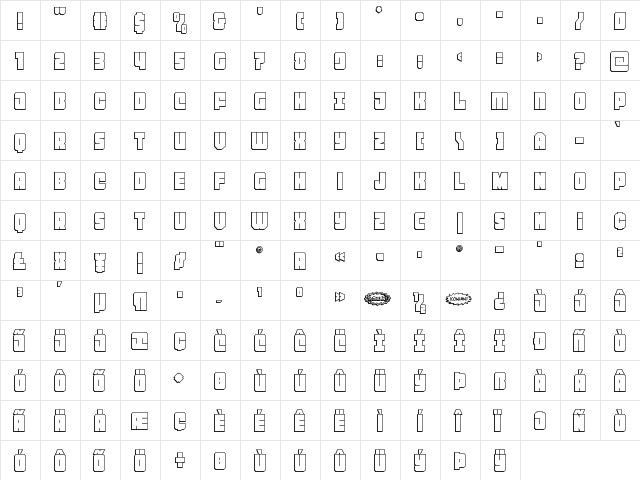
Homebase Outline Regular
Design Context for Homebase Outline Typeface
Homebase Outline brings ornamental detail and strong personality to headlines and identities, where visual impact matters more than quiet functionality.
Font Pairing: Pair with a clean neutral sans-serif for body copy to let Homebase Outline's character lead without overwhelming the composition.
Pro Tip: Use Homebase Outline exclusively at display sizes — it was designed to be seen, not read at length. Let a neutral companion handle body copy.